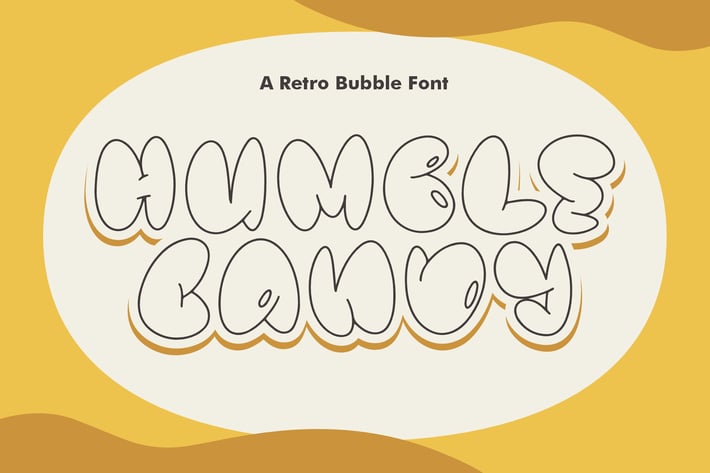
Humble Candy A Retro Bubble Font
Humble Candy is a retro bubble font bursting with fun, softness, and nostalgic charm. Its chunky rounded letters feel sweet, playful, and instantly eye-catching — like classic candy packaging mixed with cheerful vintage vibes.
Retro bubble style with bold, rounded shapes
Soft curves and bouncy letterforms
High readability with a playful personality
Friendly and cheerful visual tone
Perfectly balanced for cute yet bold designs
Kids & playful branding
Sticker designs & merch
Social media posts & thumbnails
Posters, packaging & labels
Fun logos and retro-themed projects
Sweet, bubbly, and impossible to ignore — Humble Candy brings joyful retro energy to every word.*